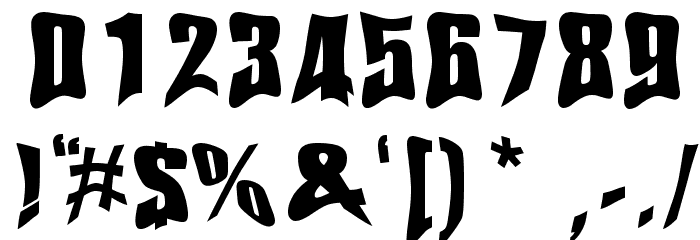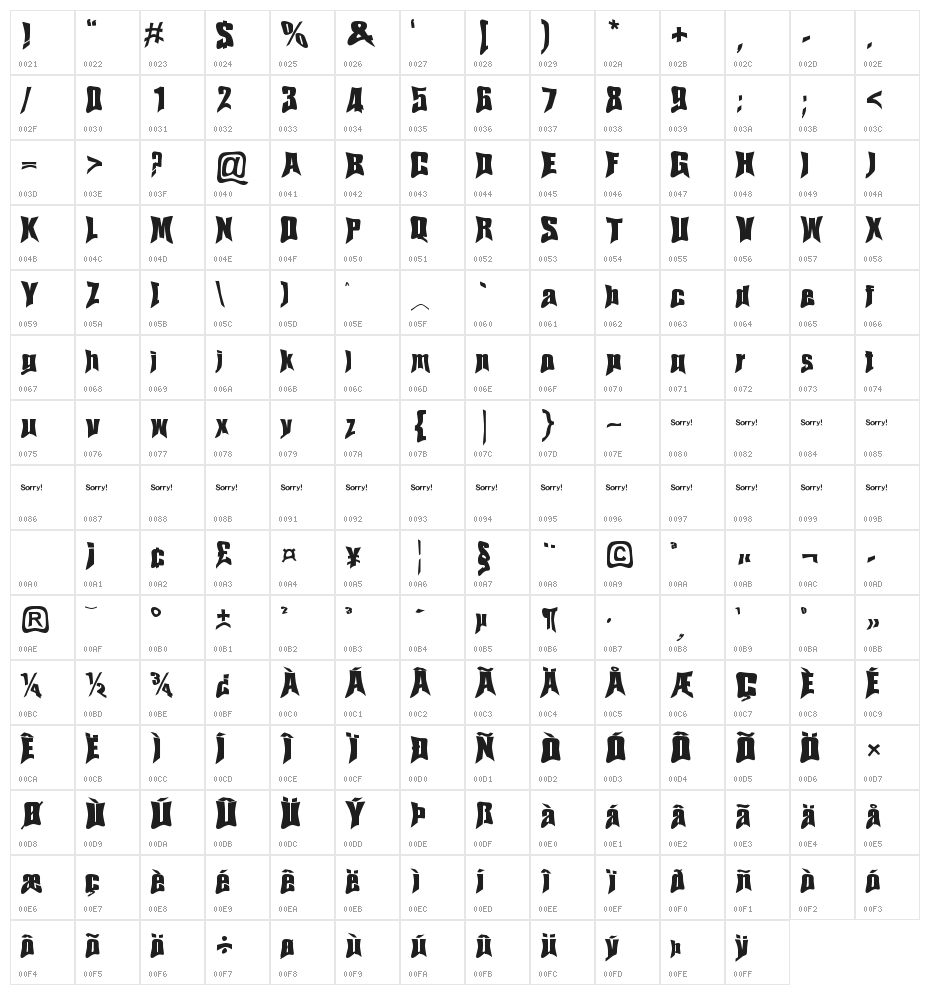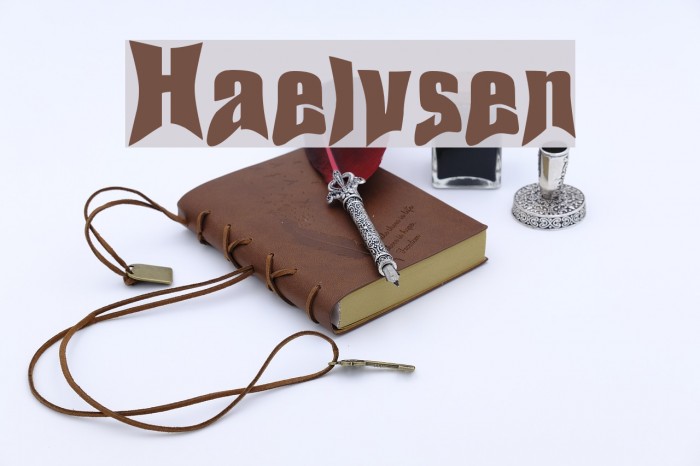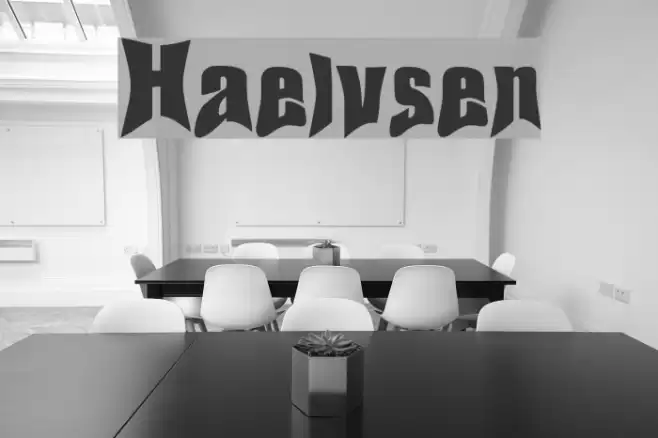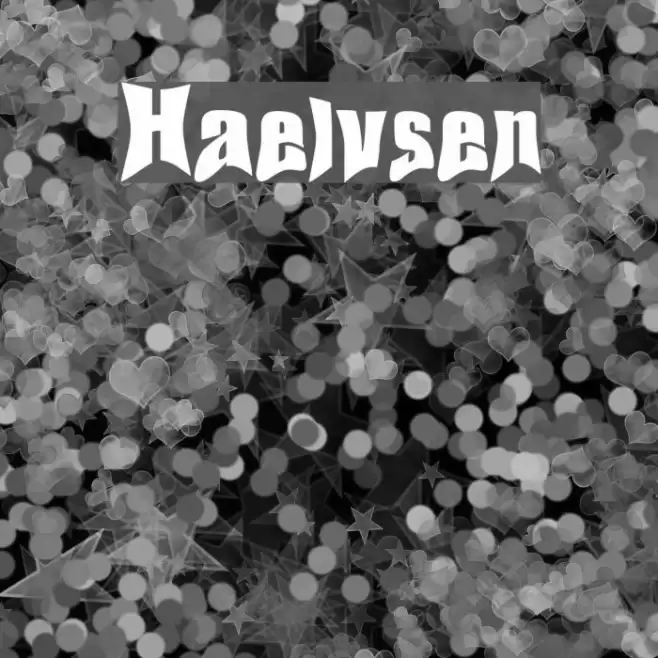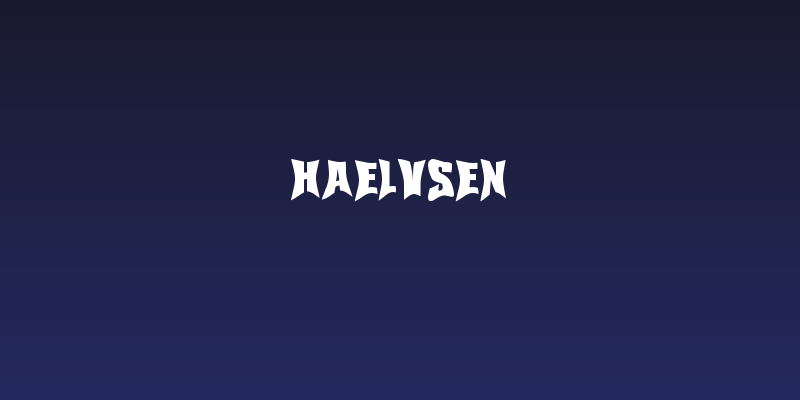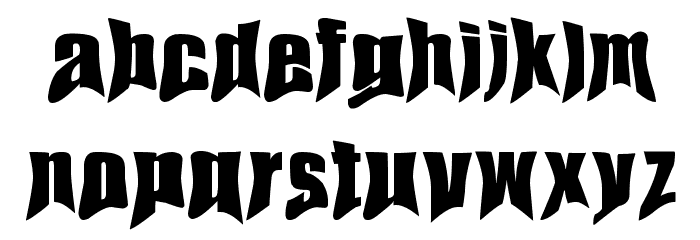
Haelvsen Font
Haelvsen Description
This font features bold, angular characters with a distinct Gothic influence, characterized by sharp edges and dramatic strokes. The uppercase letters are particularly striking, with a heavy presence that commands attention. The lowercase letters maintain the same angular style, offering a cohesive look across the typeface. Numbers and special characters are designed with the same boldness, ensuring consistency throughout. The overall aesthetic is both modern and edgy, making it suitable for projects that require a strong visual impact.
| Overall Style | Modern, Edgy |
| Proposed Projects | Ideal for branding, posters, album covers, and any design that requires a bold, impactful typeface. |